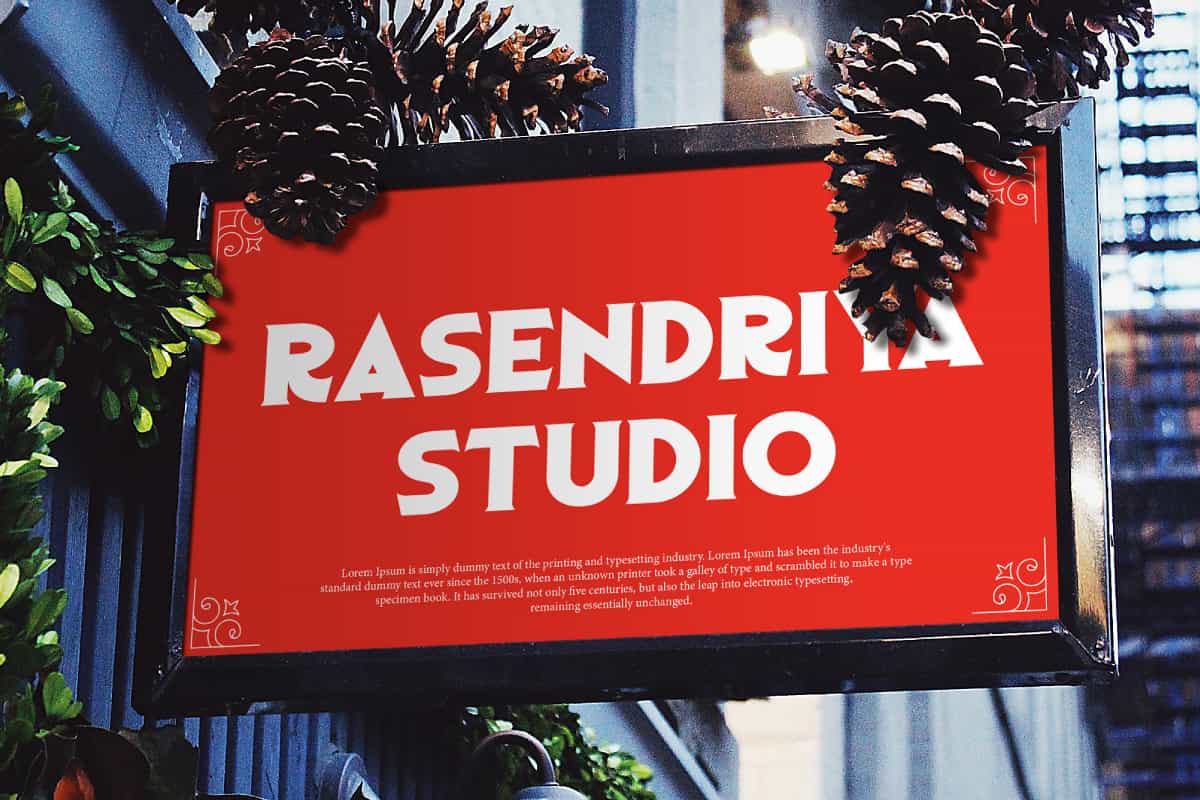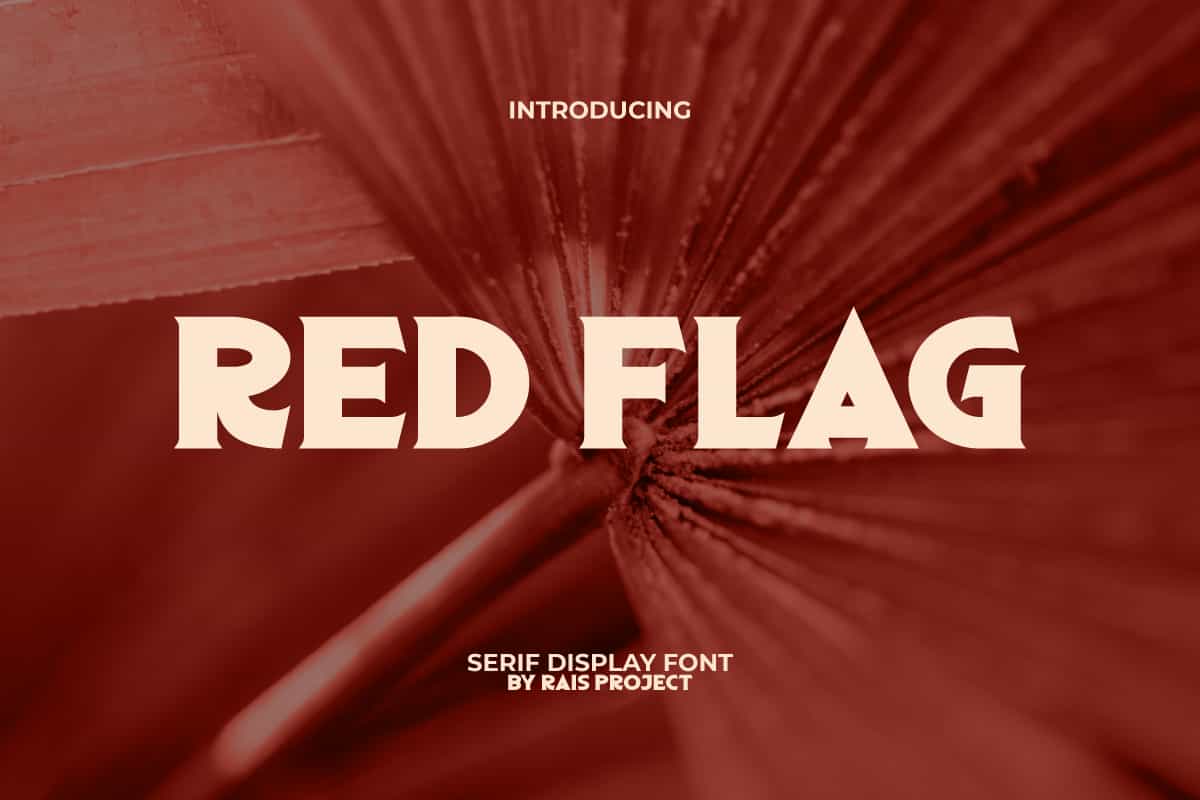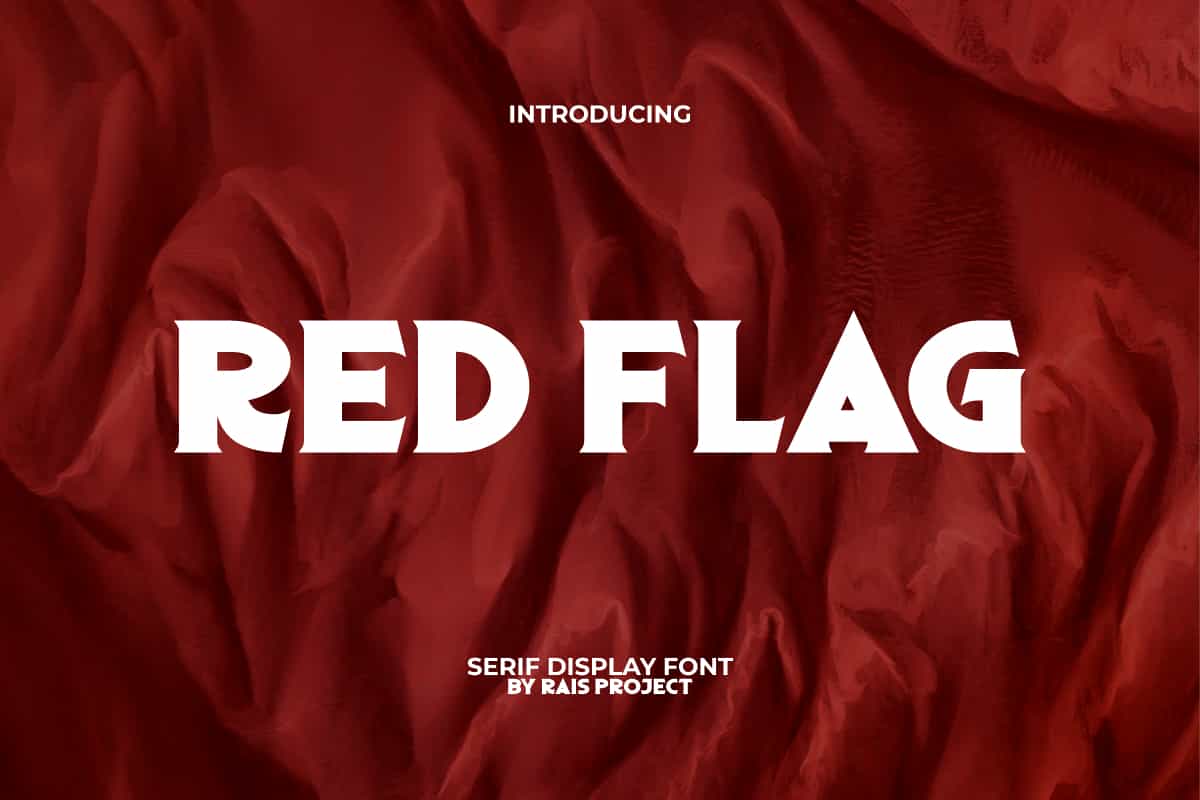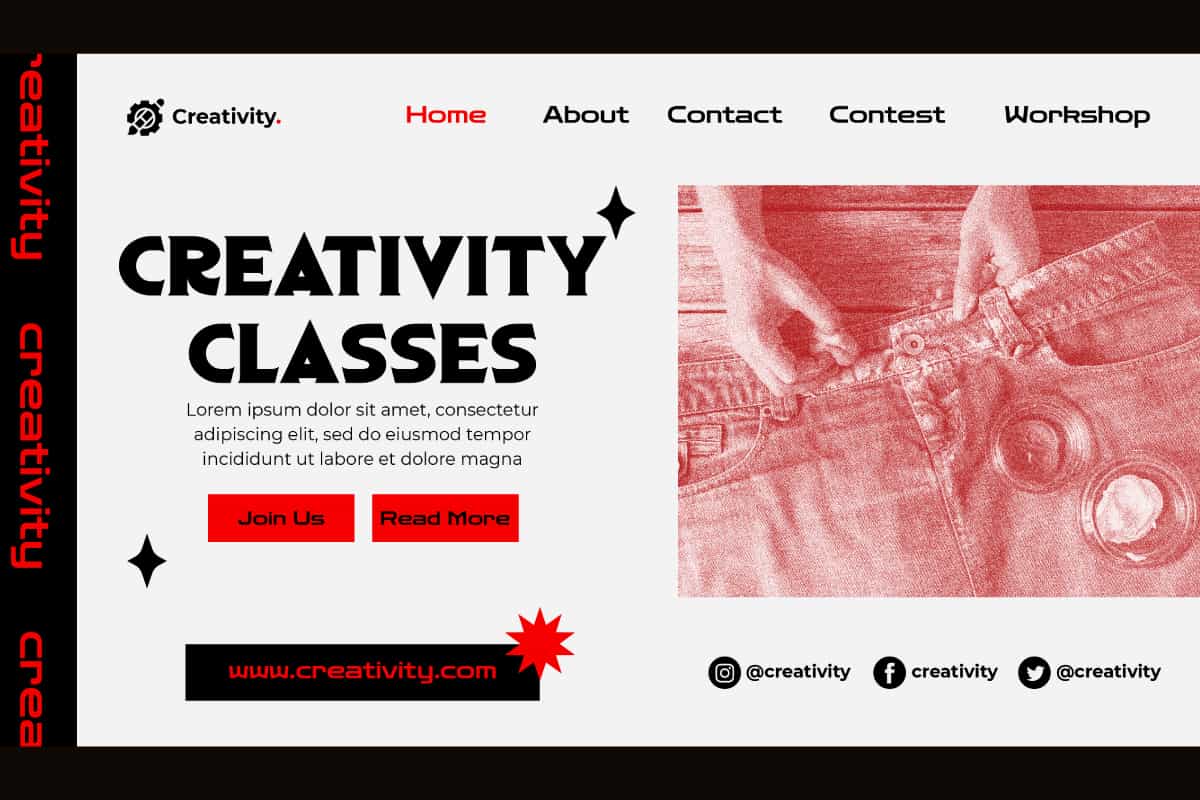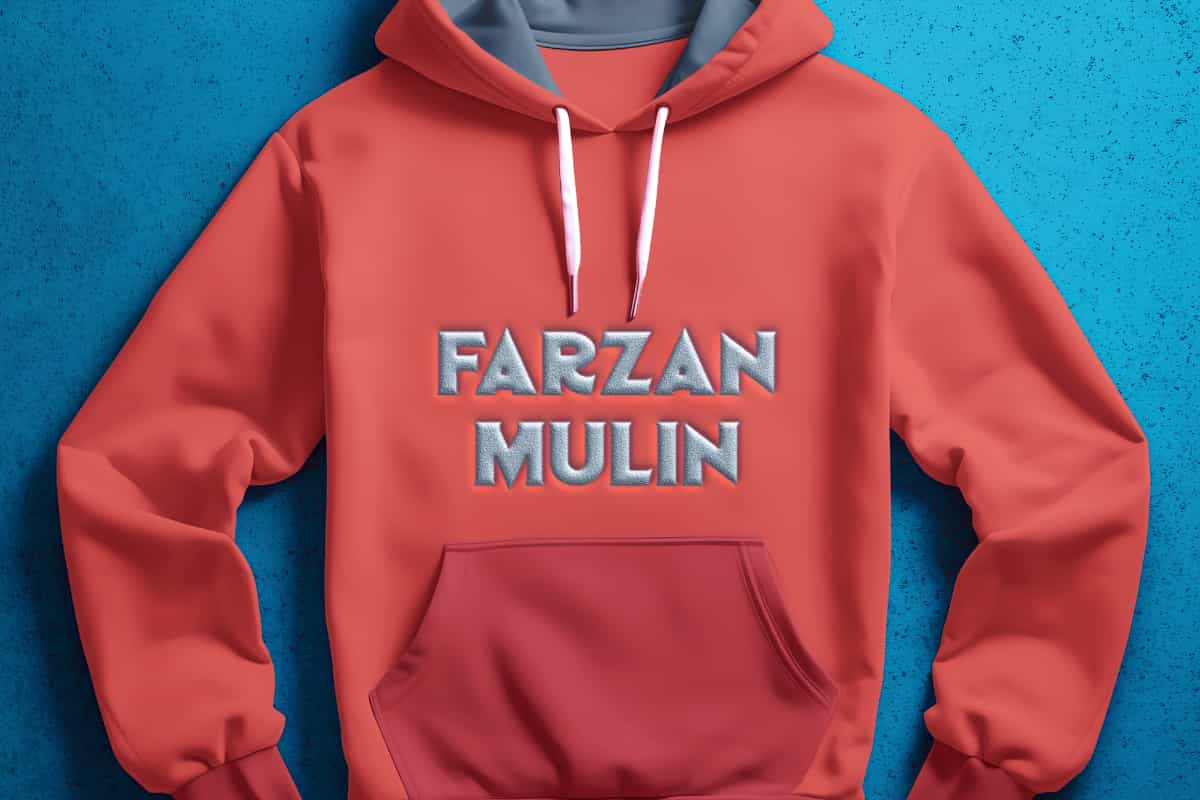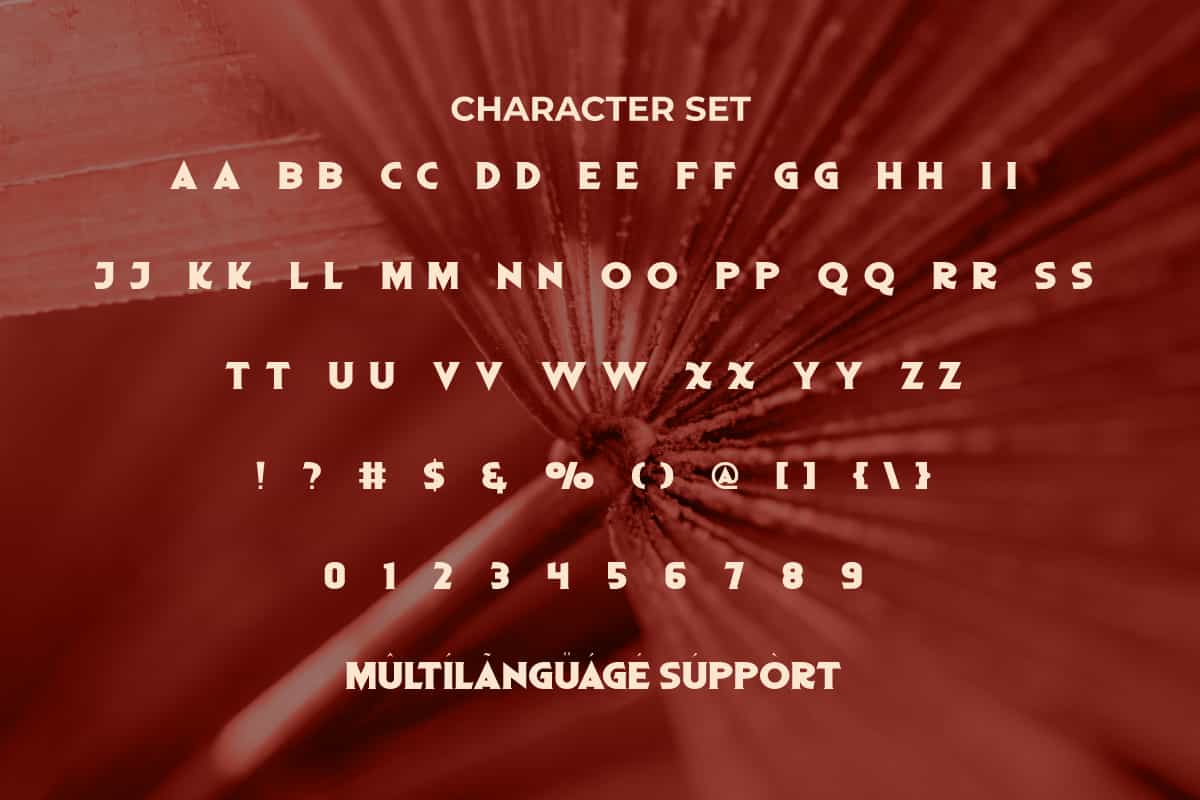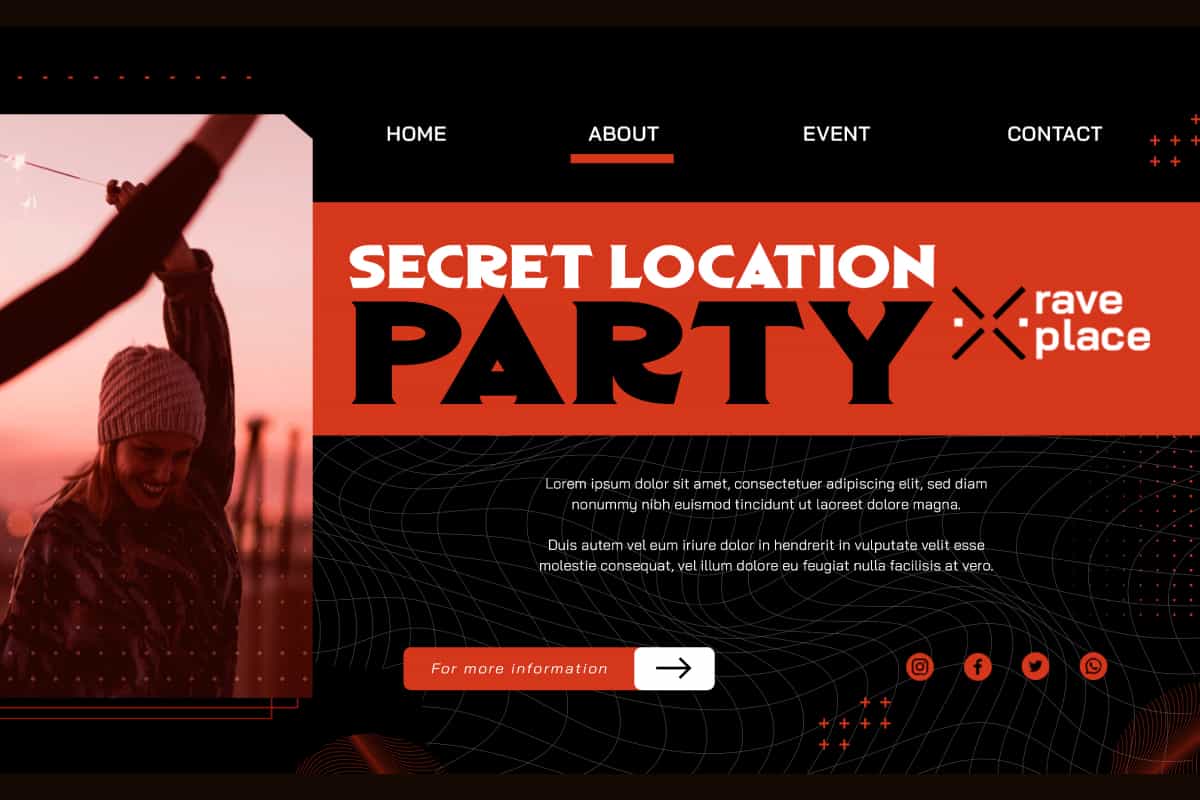
Red Flag Serif Display Font
Red Flag Font is a strong on point and casual serif display font that will make your designs looks trendy!
Red Flag Font is a strong on point , casual attractive serif display font, by RaisProject.It will be good for any designs, such as poster, signage, cover, menu, invitation, custom design, brand image, label, product packaging, quotes, stationery, web, and more! You can see the demo font below, input any word you want so you can see what it looks like:
Red Flag Font includes a full set of Uppercase and Lowercase Letters, Numerals, Punctuation and Symbol. This stylish font will be suitable for various industries, such as fashion, accessories, advertisement, event or festival, homeware, perfume, photography, printing, publishing, real estate, etc. What you get: